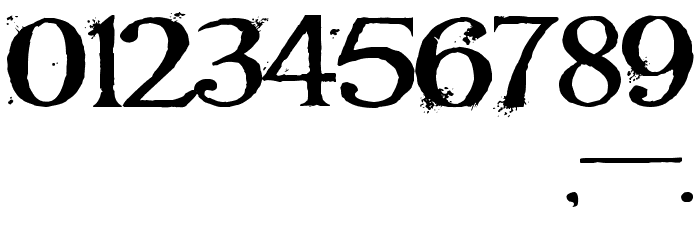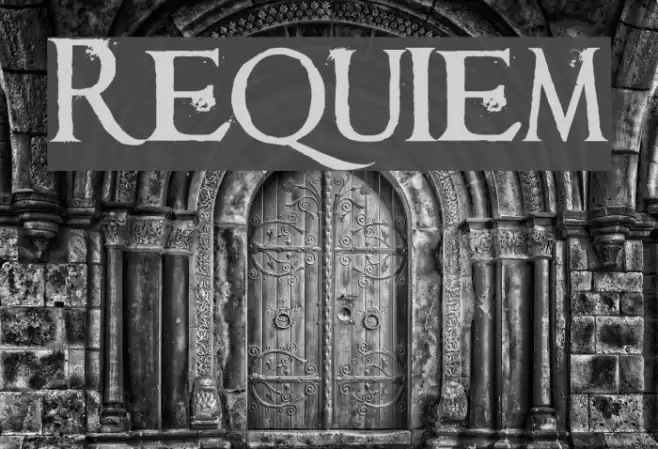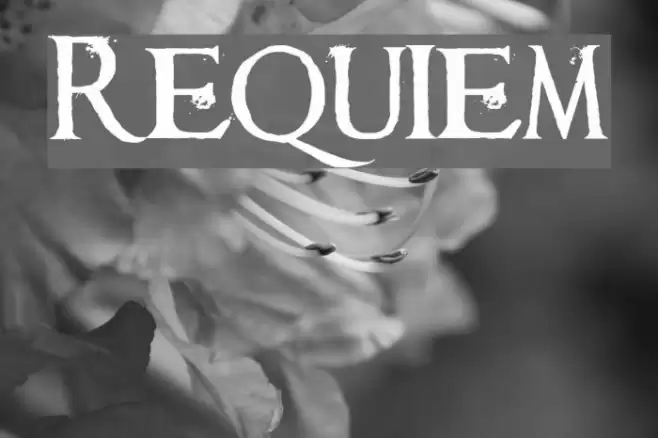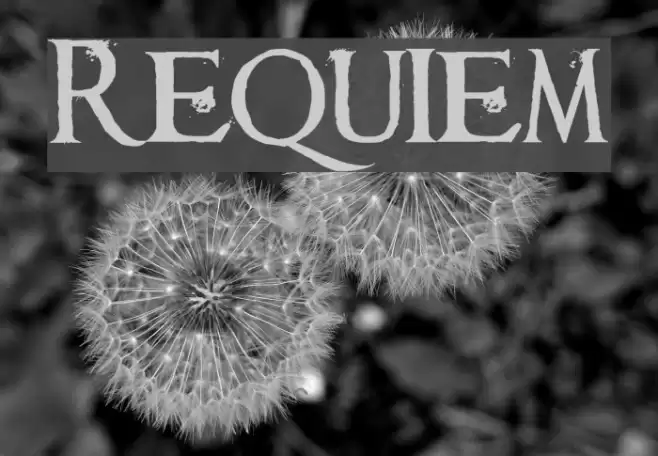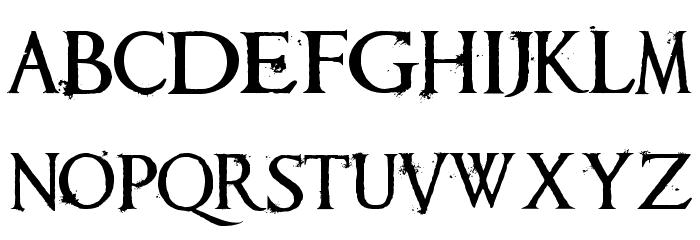
Requiem Font
Requiem Description
This font features a distressed and weathered appearance, reminiscent of ancient manuscripts or historical texts. The characters are bold and have a slightly rough texture, giving them a unique, aged look. The serifs are pronounced, adding to the classic and traditional feel of the typeface. The overall design suggests a sense of history and timelessness, making it suitable for projects that require a vintage or antique aesthetic. The numerals and special characters maintain the same distressed style, ensuring consistency across all elements.
| Overall Style | Vintage |
| Proposed Projects | Ideal for book covers, historical documents, themed posters, or any project requiring a vintage or antique look. |